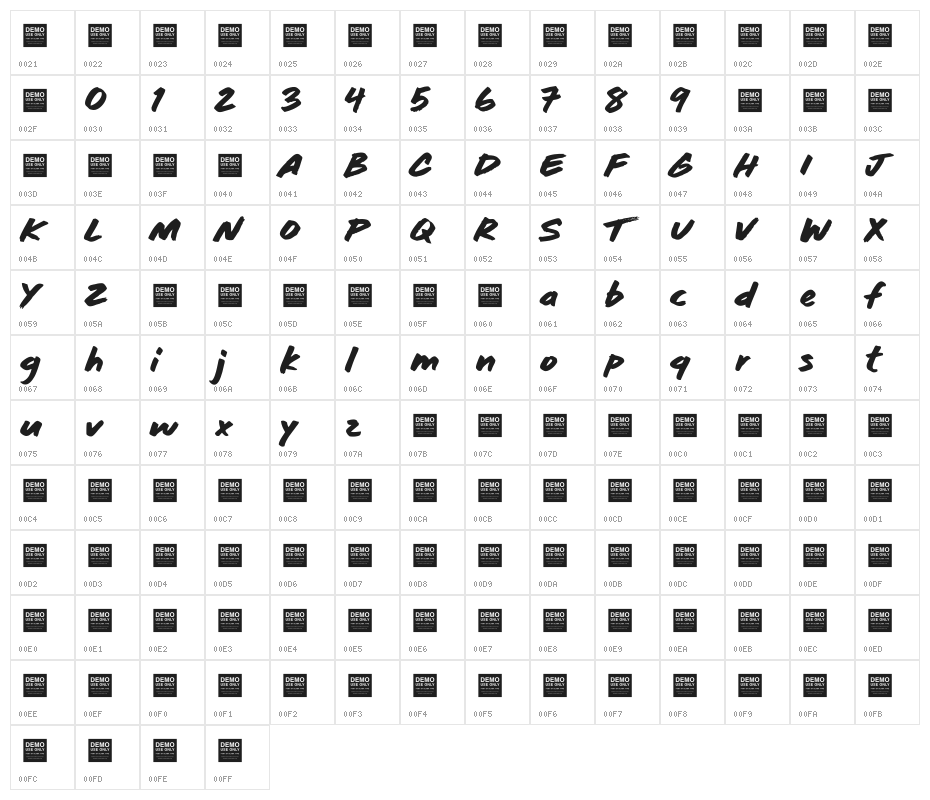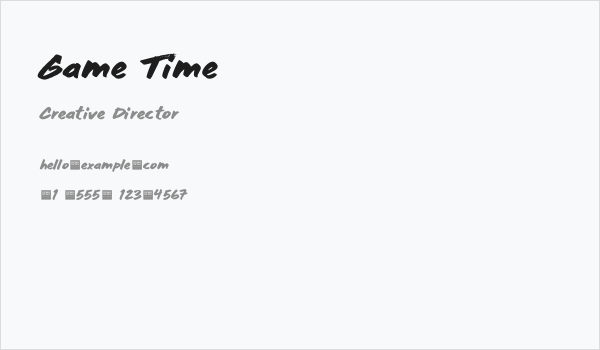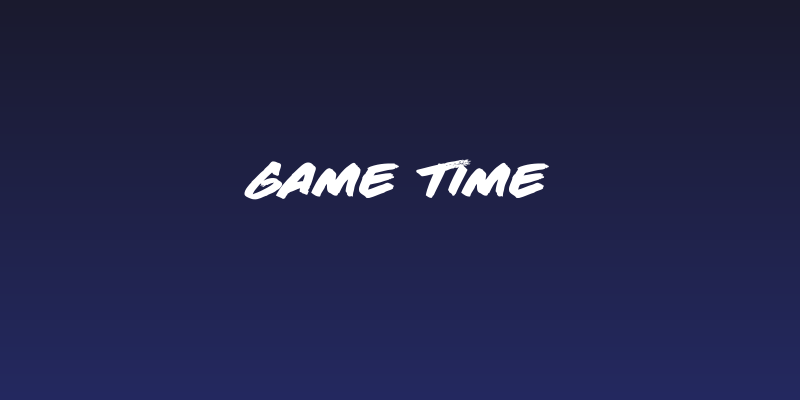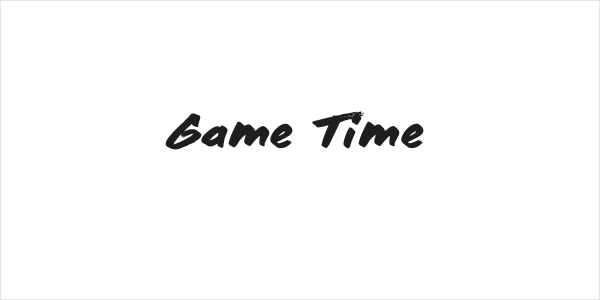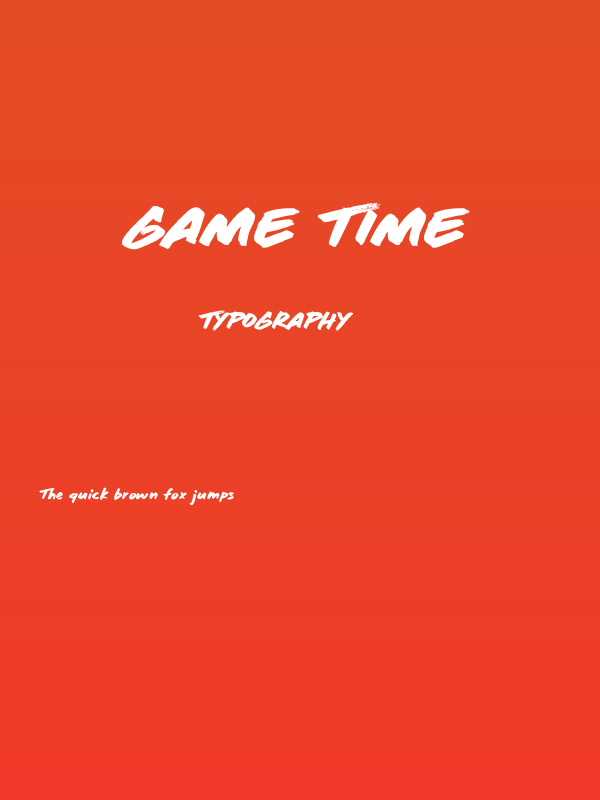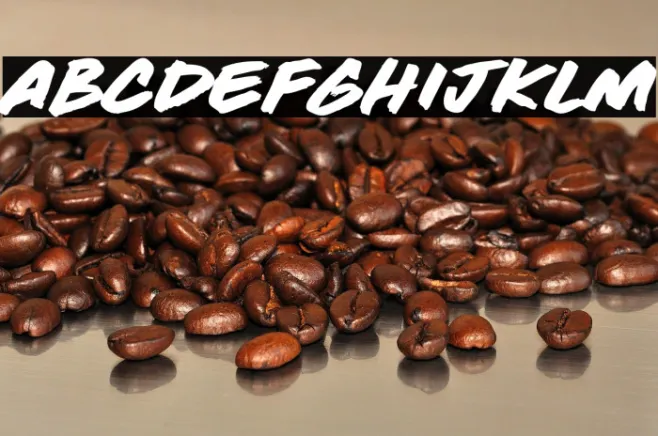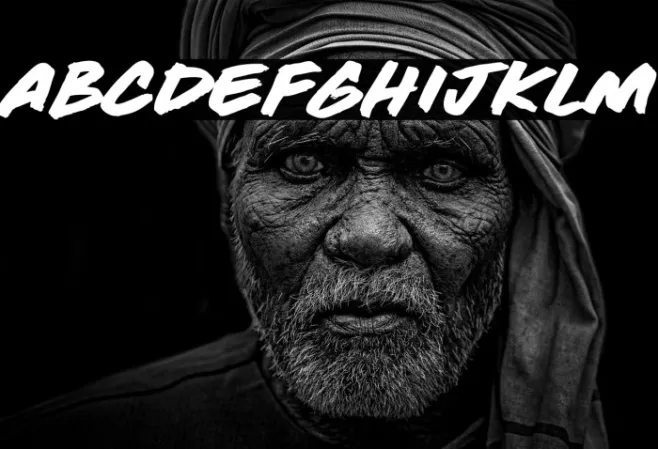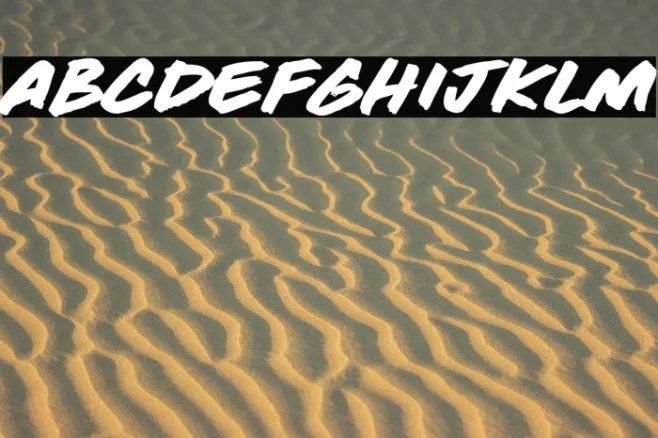
Game Time Font
Game Time Description
This font features a bold and dynamic brush script style, characterized by its thick strokes and energetic flow. The letters are crafted with a sense of movement, giving them a lively and expressive appearance. The uppercase and lowercase characters maintain a consistent style, with slightly exaggerated curves and angles that add to the font's playful nature. The numbers and special characters follow the same design principles, ensuring a cohesive look across all elements. This font is ideal for projects that require a touch of creativity and flair.
GAME-TIME UPPERCASE
GAME-TIME LOWERCASE
GAME-TIME OTHER CHARS
| Proposed Projects | Ideal for branding, posters, social media graphics, and event invitations. |